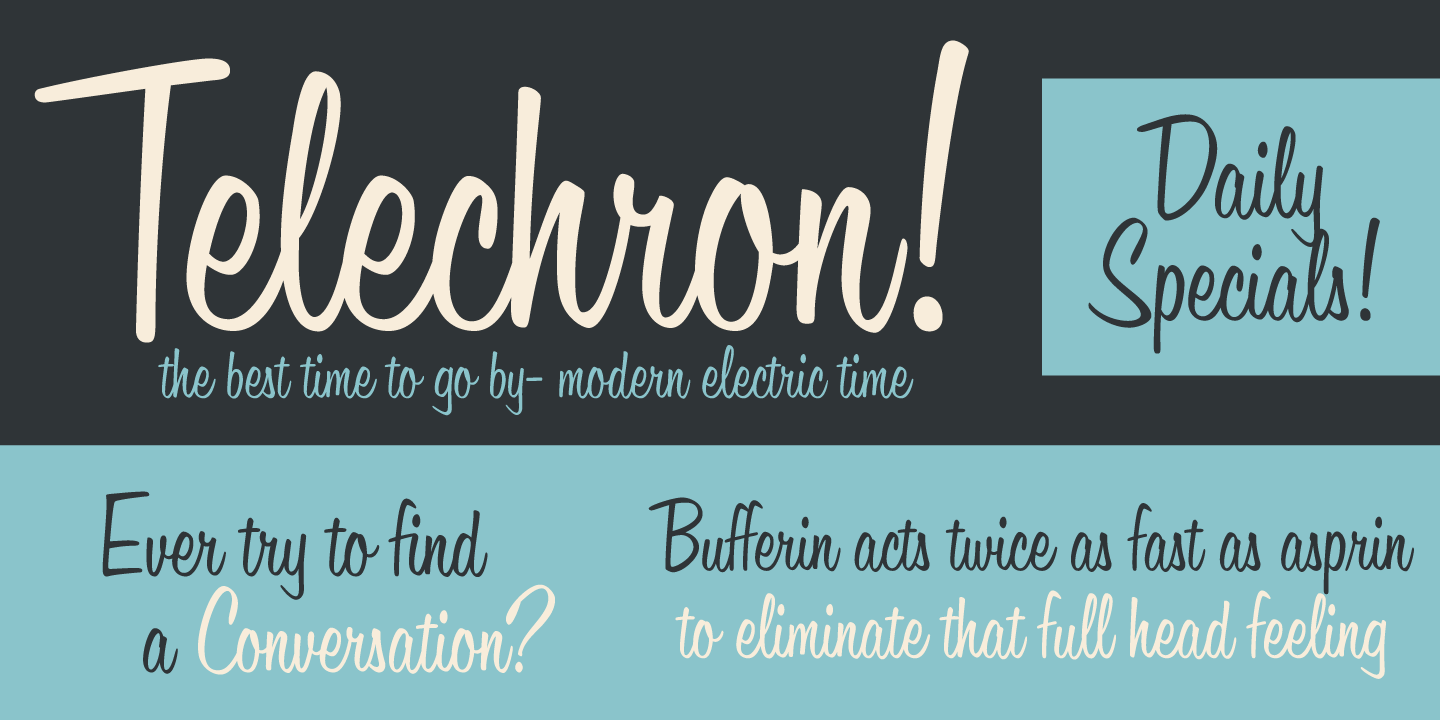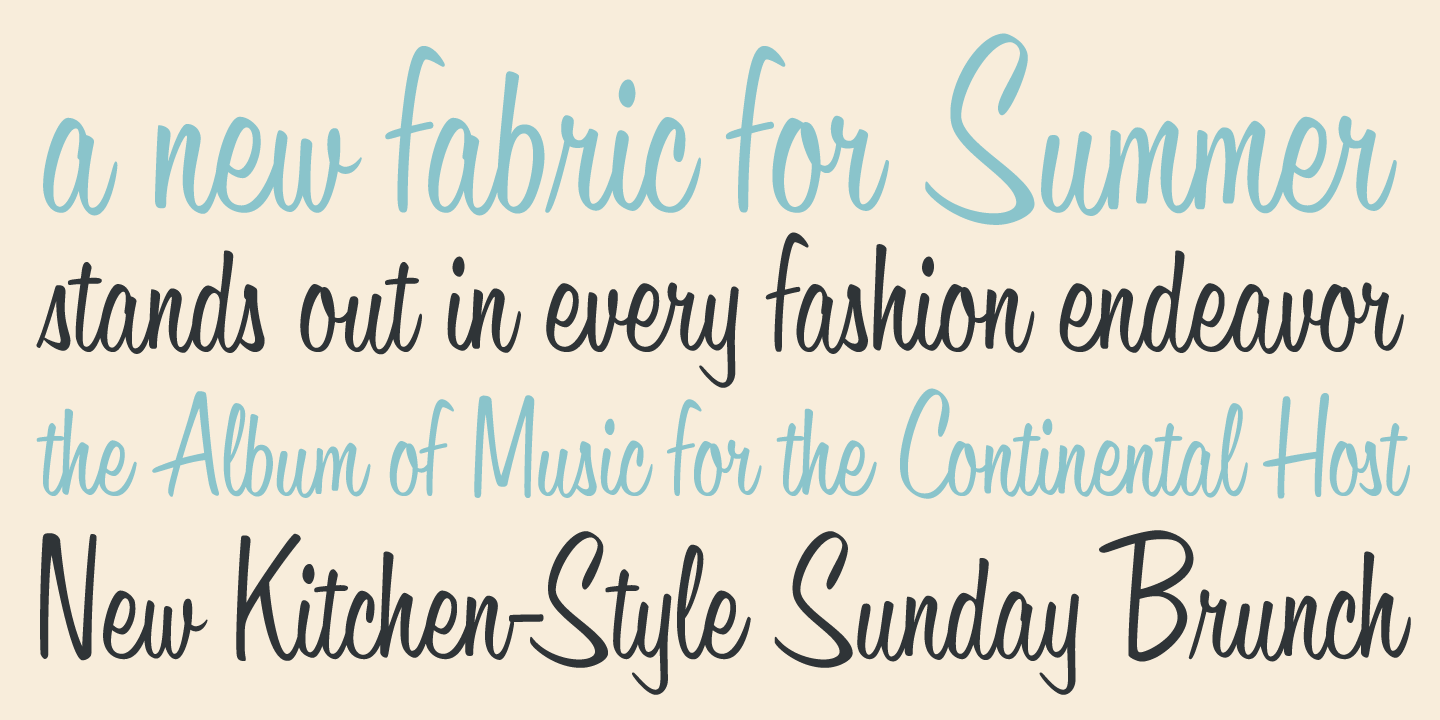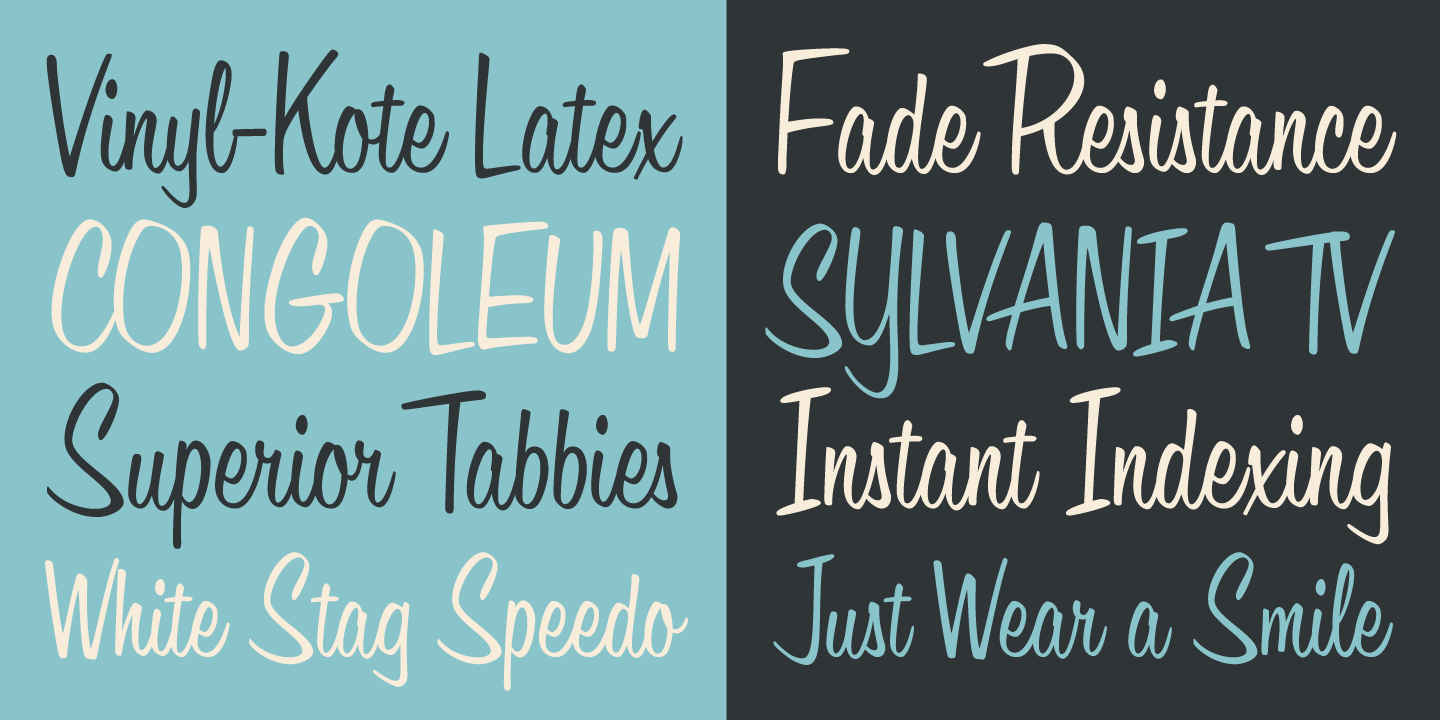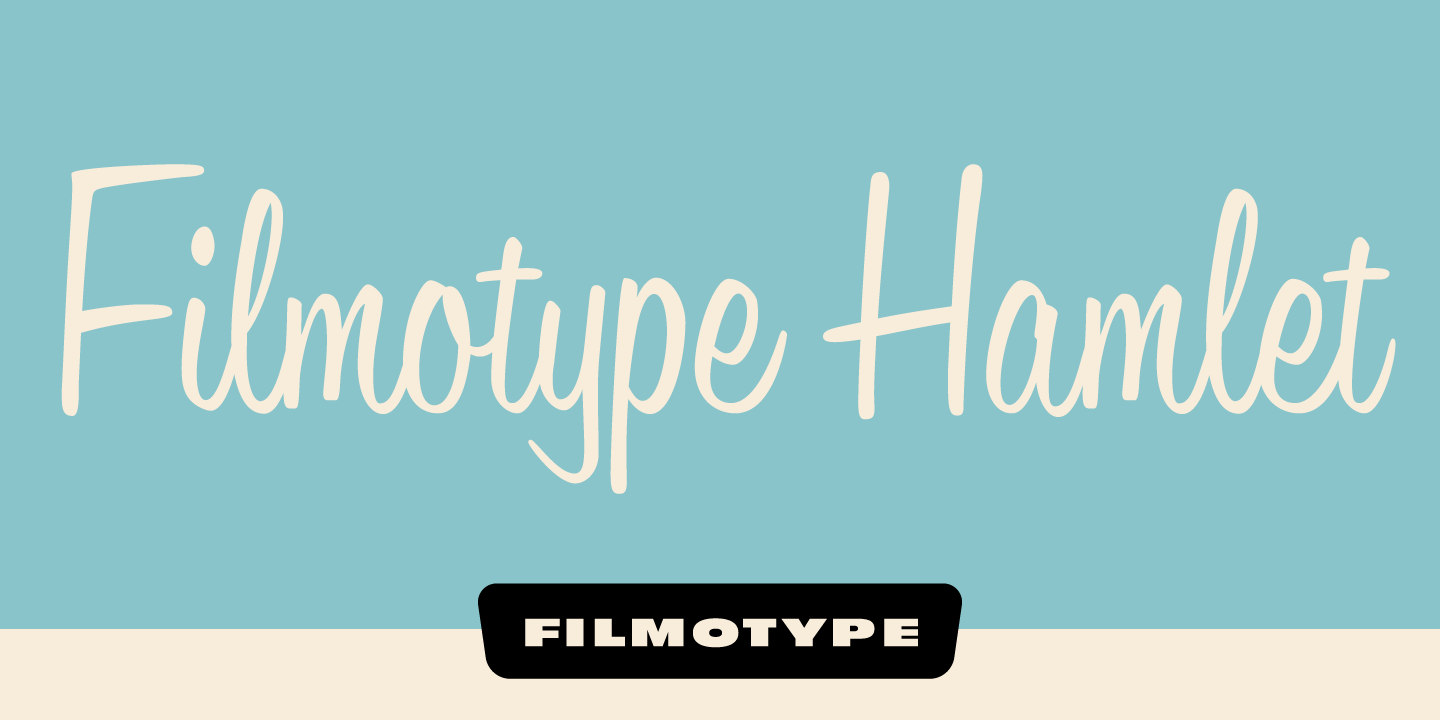
Filmotype Hamlet
About Filmotype Hamlet
Filmotype Hamlet was released by Filmotype in 1955 as a condensed version of it's first connecting script face Filmotype Harmony originally designed by Ray Baker. Developed from the original font filmstrips, Filmotype Hamlet includes a full international…